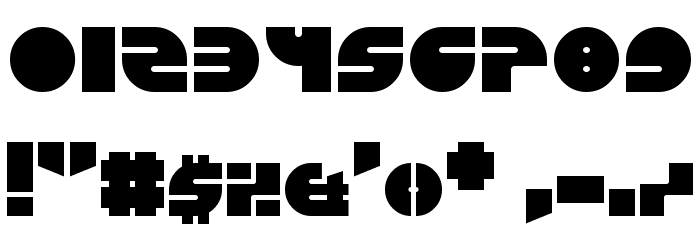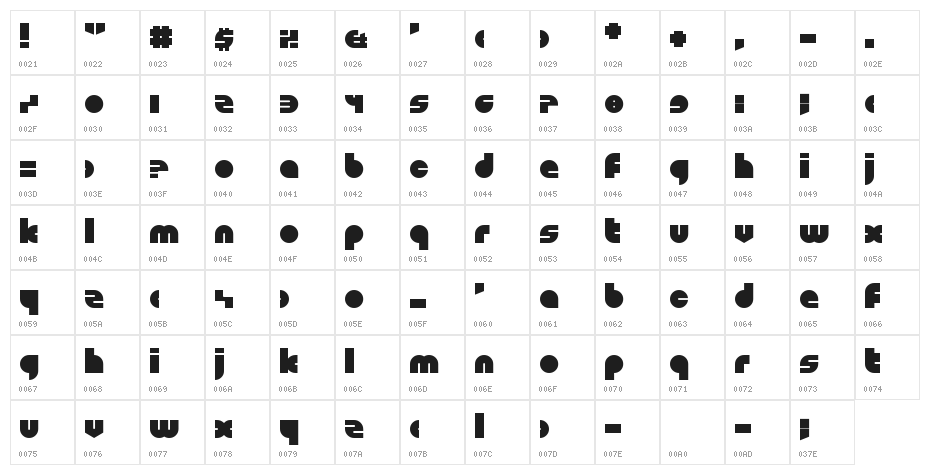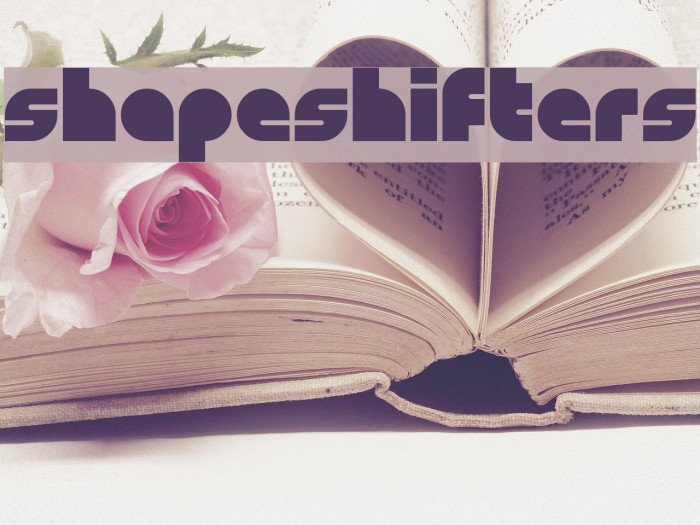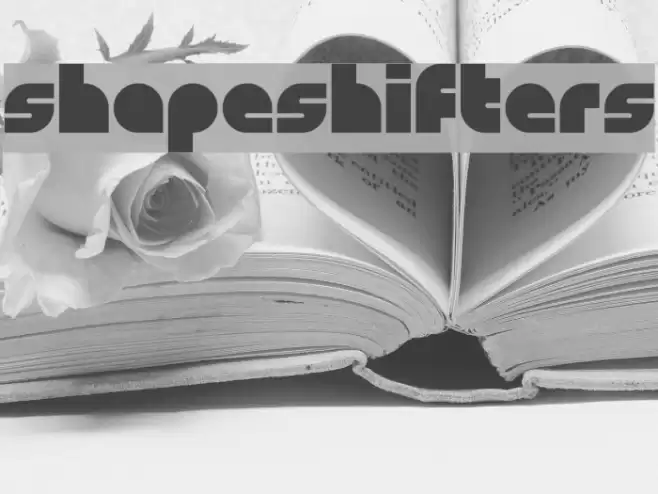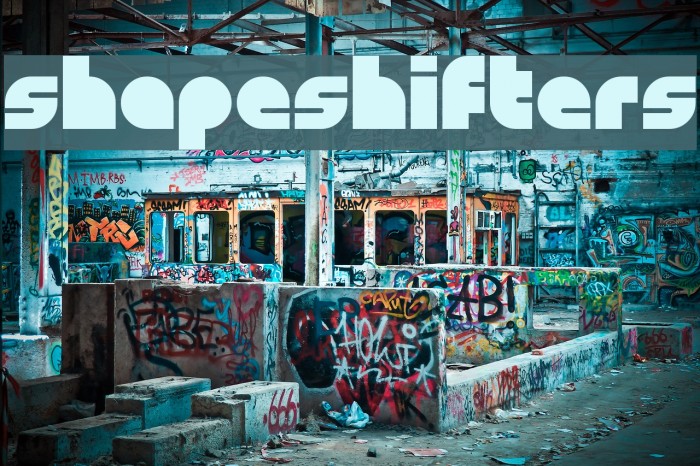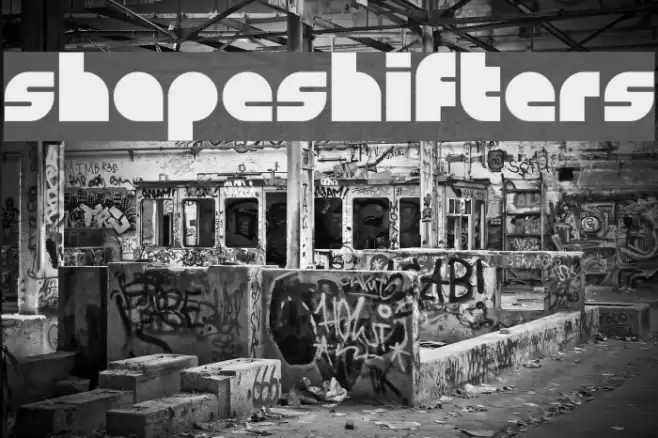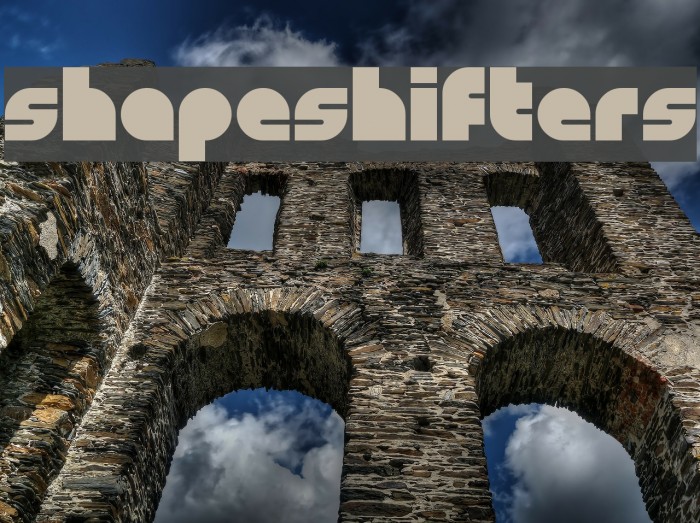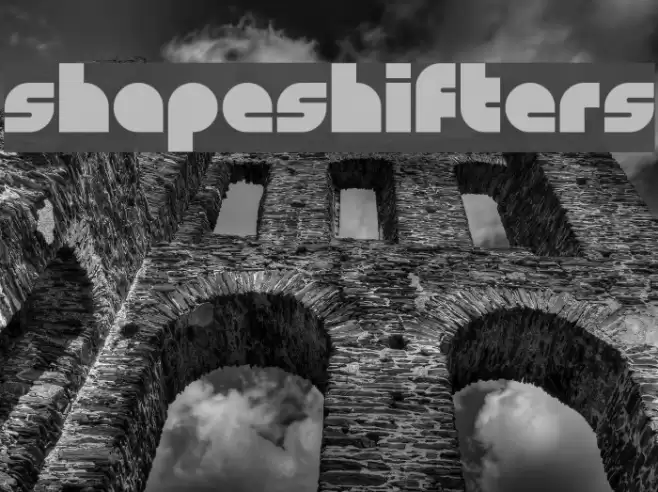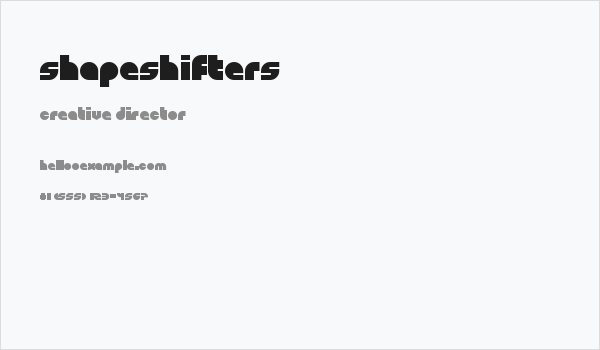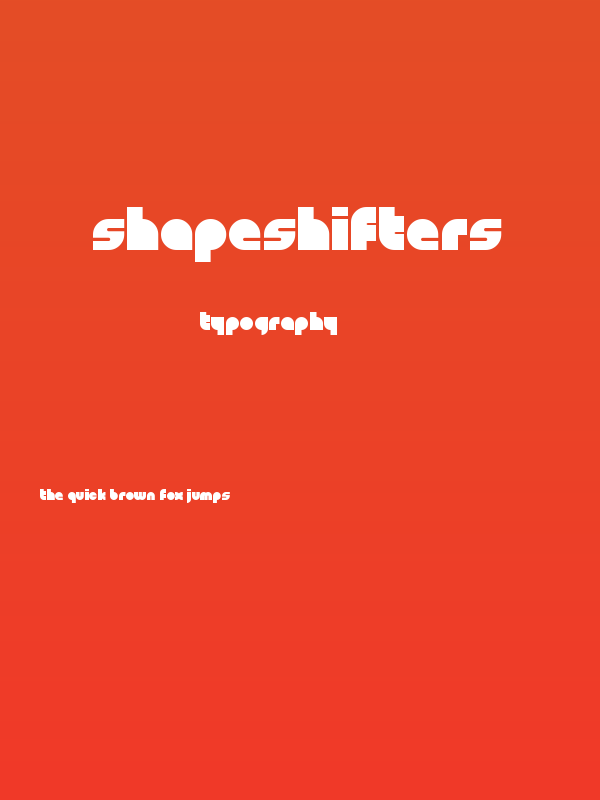
Shapeshifters Font
Shapeshifters Description
This font features a bold and geometric design with a futuristic flair. Each character is crafted with a combination of sharp angles and smooth curves, creating a unique and eye-catching appearance. The letters are uniformly bold, with a consistent stroke width that enhances readability while maintaining a distinctive style. The characters are tightly spaced, contributing to a compact and cohesive look. This font's modern aesthetic is perfect for projects that require a strong visual impact, such as branding, posters, and digital media. The numbers and special characters follow the same design principles, ensuring a harmonious overall appearance.
| Use Case | Logos, Headlines |
| Proposed Projects | Ideal for branding, posters, digital media, and any project needing a strong visual impact. |